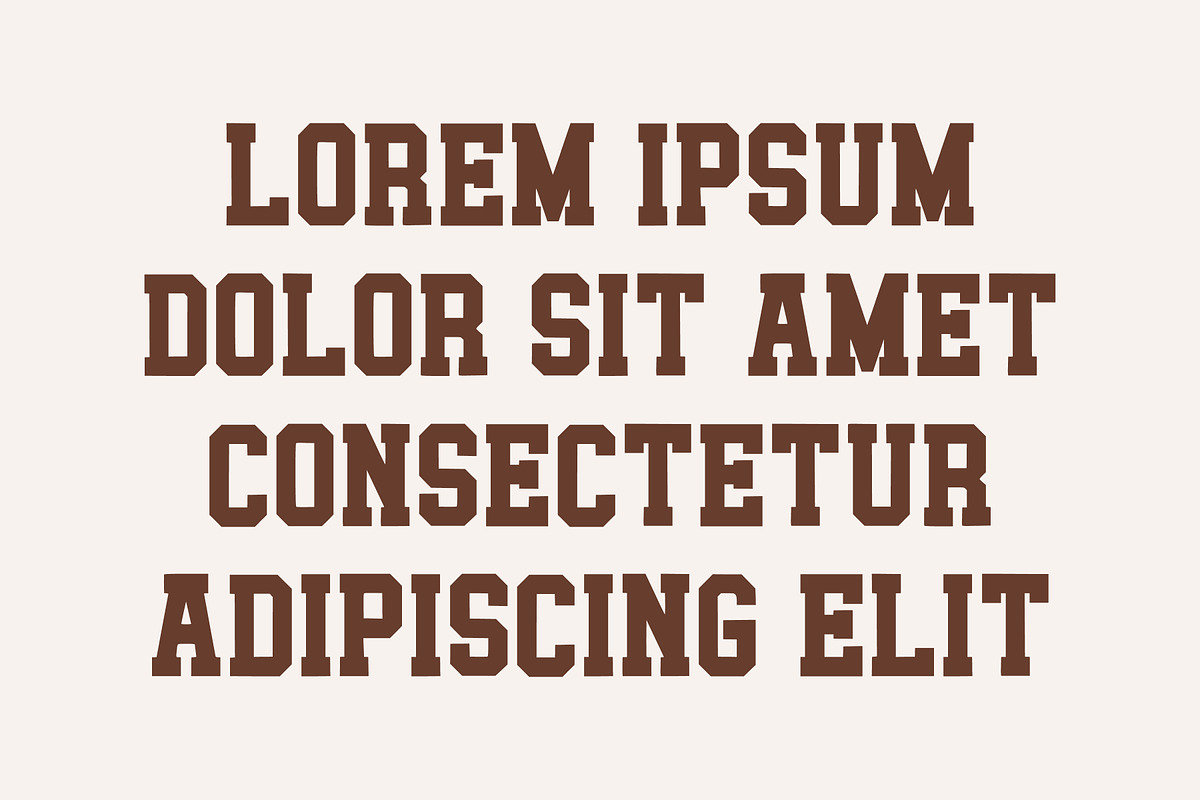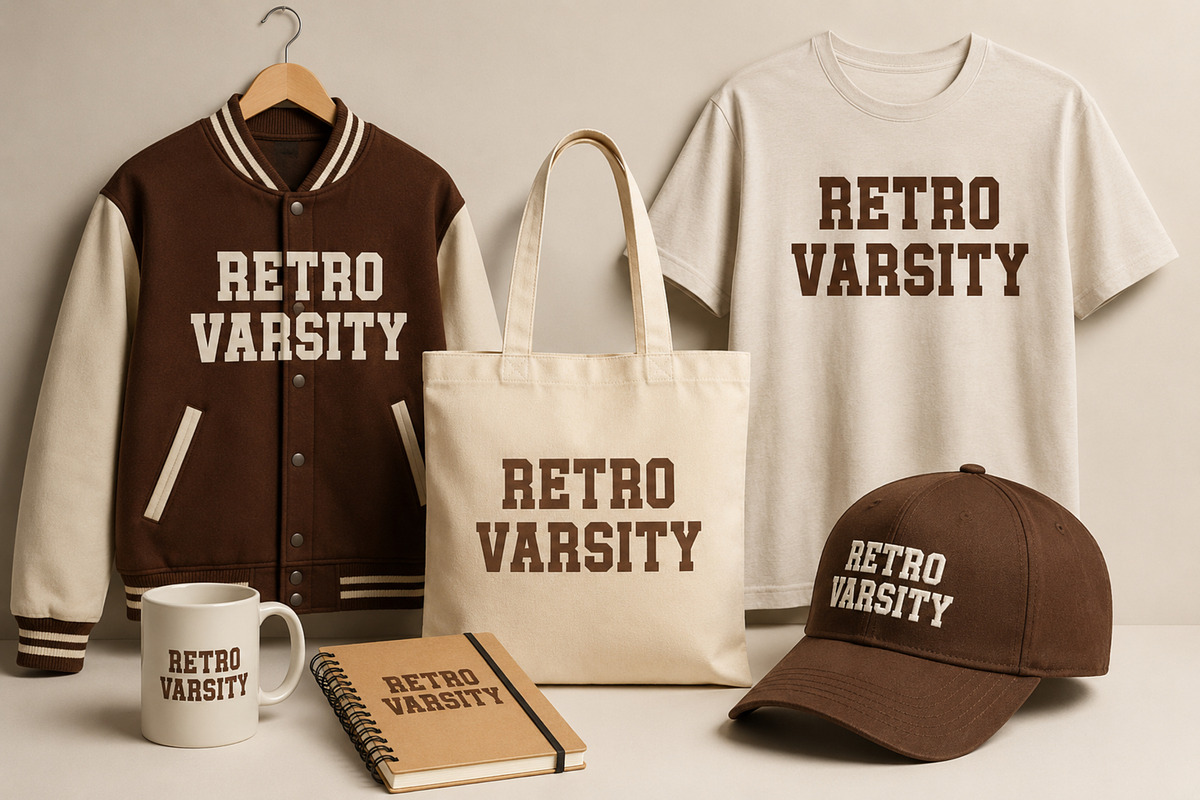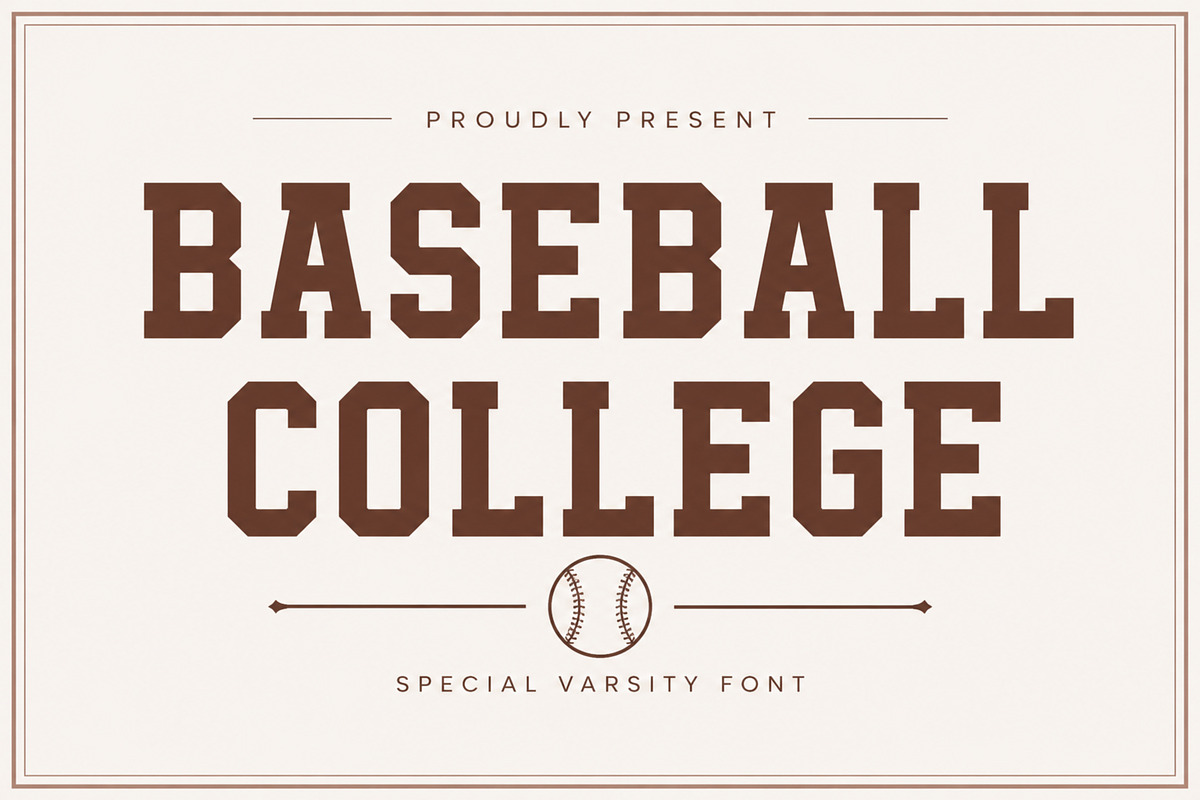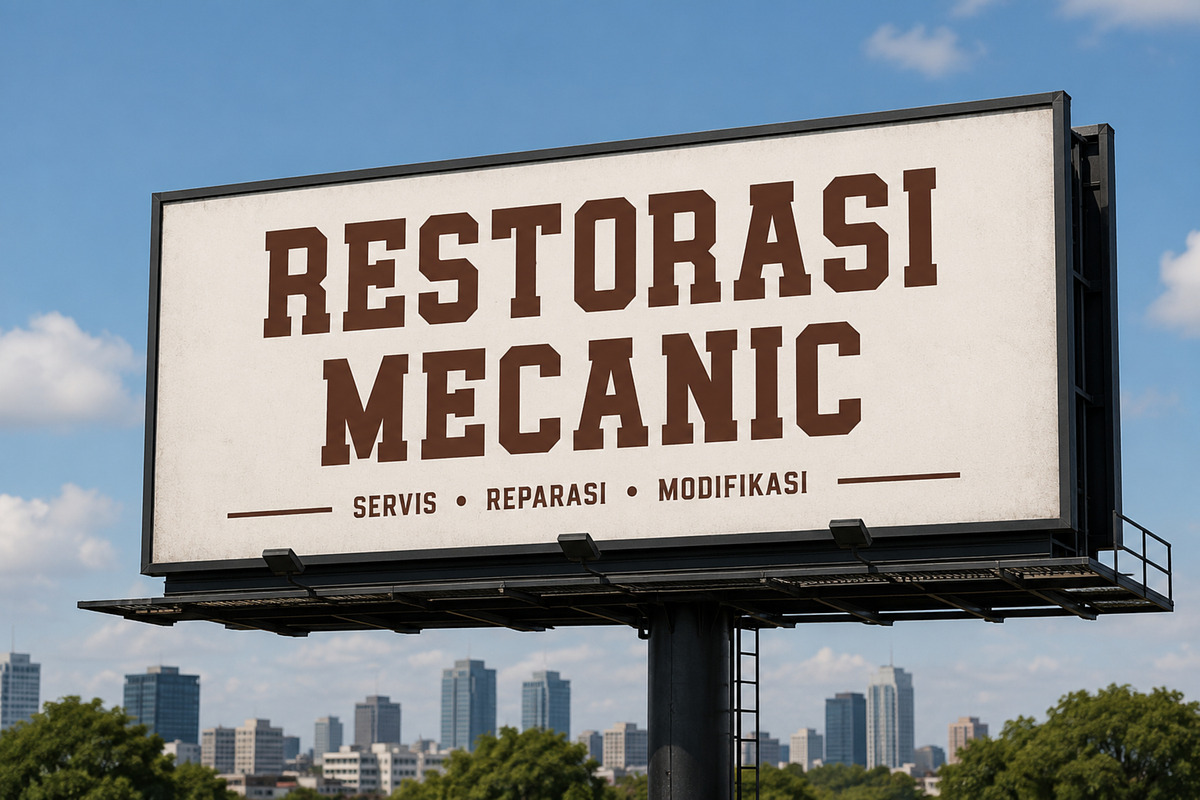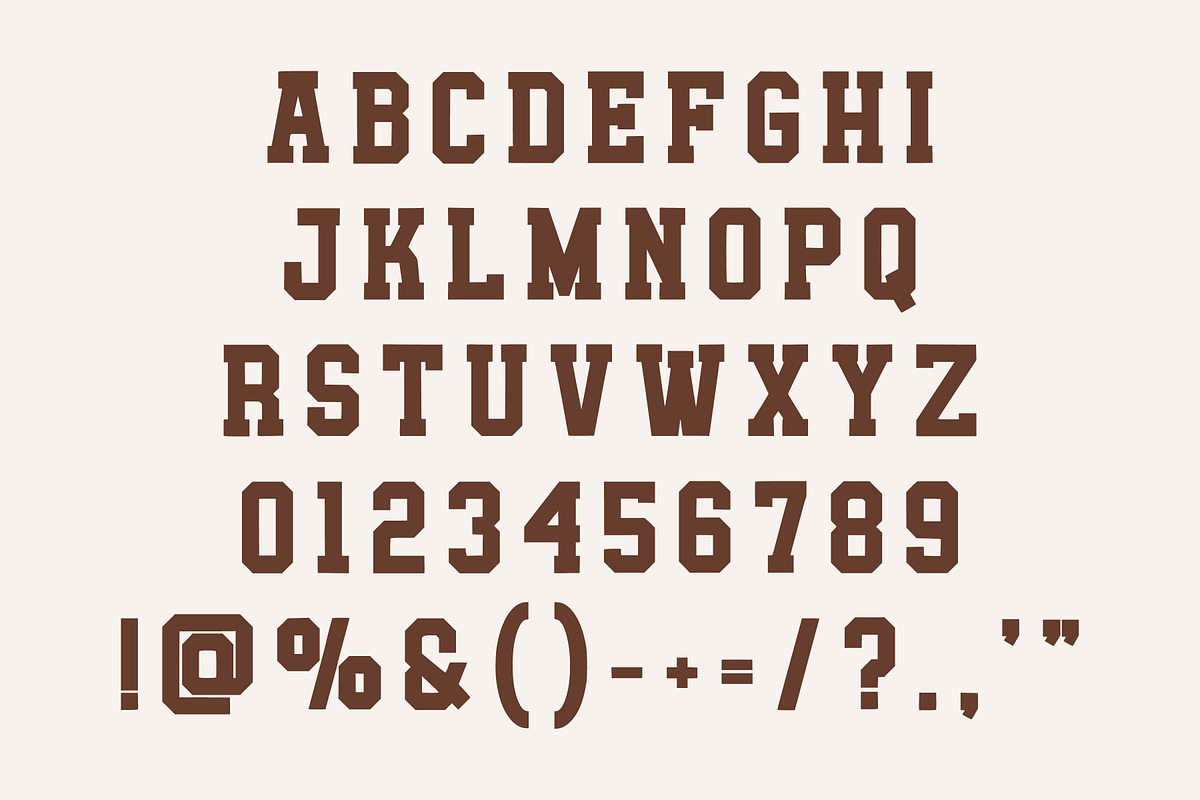
Baseball College – Varsity Sports
Baseball College is a bold varsity display font with strong block letterforms and a classic collegiate sports character. Inspired by traditional baseball jerseys, college athletics, and vintage American sports typography, it brings an authentic team identity to your designs.
Its distinctive athletic style makes it ideal for baseball logos, sports jerseys, team merchandise, college branding, posters, caps, apparel, and championship graphics.
Bold varsity display style
Collegiate-inspired letterforms
Classic sports aesthetic
Strong and highly readable characters
Perfect for team branding
Uppercase characters
Baseball team logos
Sports jerseys
College & university branding
Athletic apparel
Team merchandise
Baseball caps
Posters & banners
Sports event graphics
T-shirt designs
Mascot branding
Stadium graphics
Social media sports content
Vintage sports posters